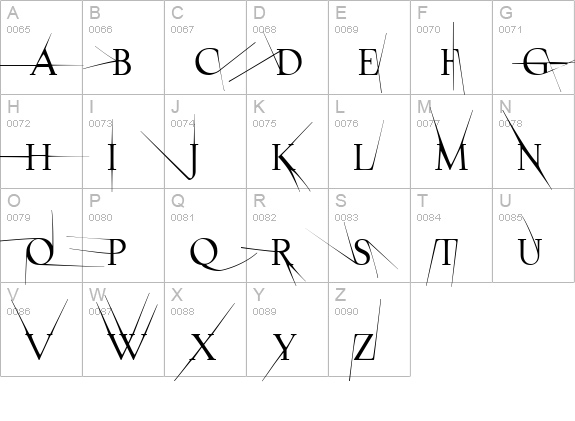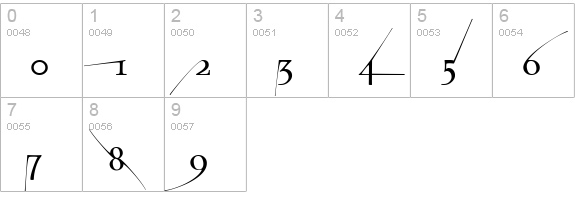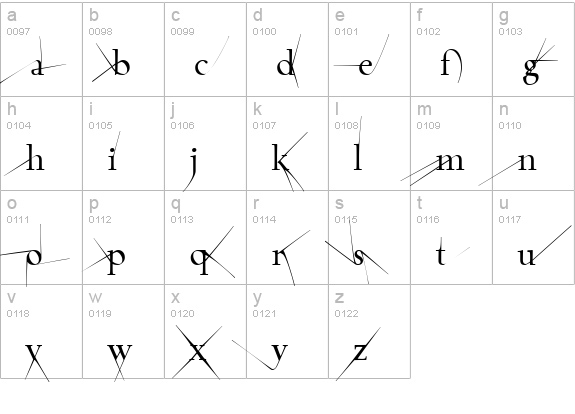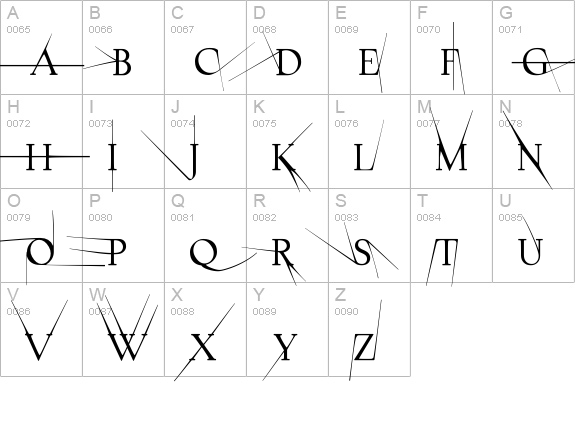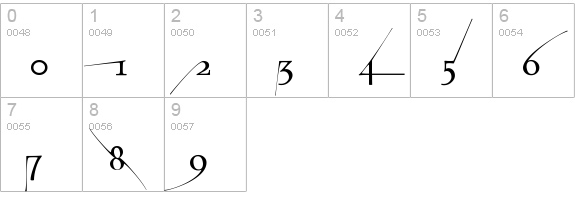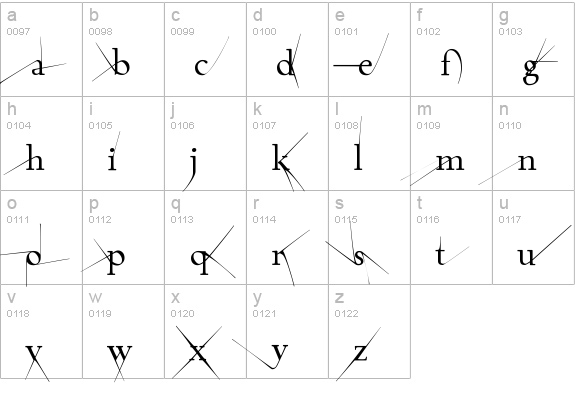
TaskToobig Font Details
Introducing TaskToobig font, a versatile and modern typeface perfect for a wide range of design projects. This font features a unique combination of sleek lines and bold strokes, making it ideal for both headers and body text. TaskToobig font exudes a sense of sophistication and style, making it a great choice for branding, marketing materials, and more. Best of all, TaskToobig font is available for free download at FontsMarket.com. Yes, you read that right - this stunning font can be yours at no cost, making it a valuable addition to your font collection without breaking the bank. Don't miss out on the opportunity to elevate your designs with TaskToobig font today!